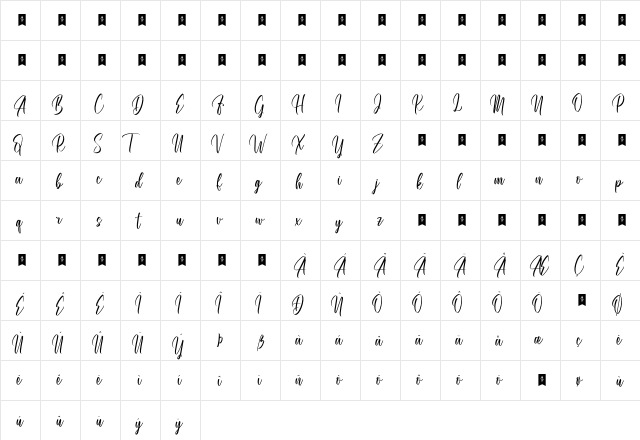
Amstallova Normal
Design Context for Amstallova Typeface
Amstallova is a composed and adaptable typeface that performs quietly and consistently across a wide range of design contexts.